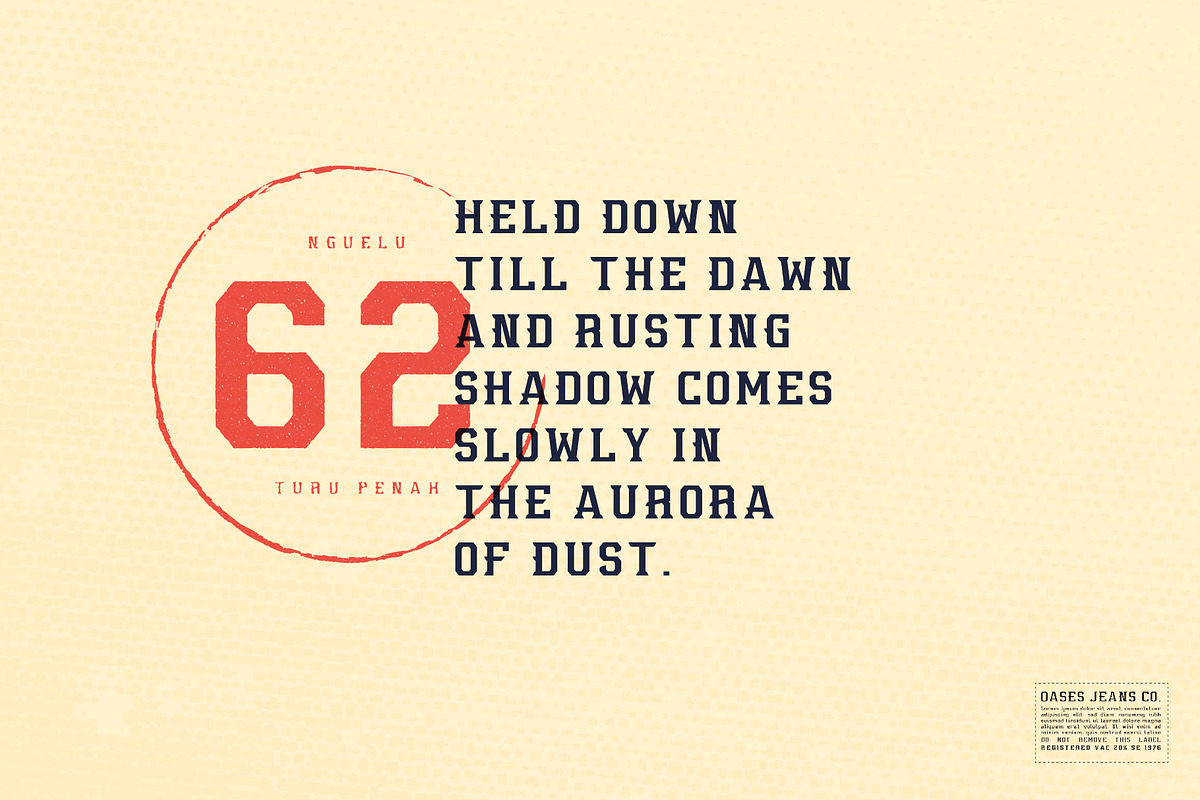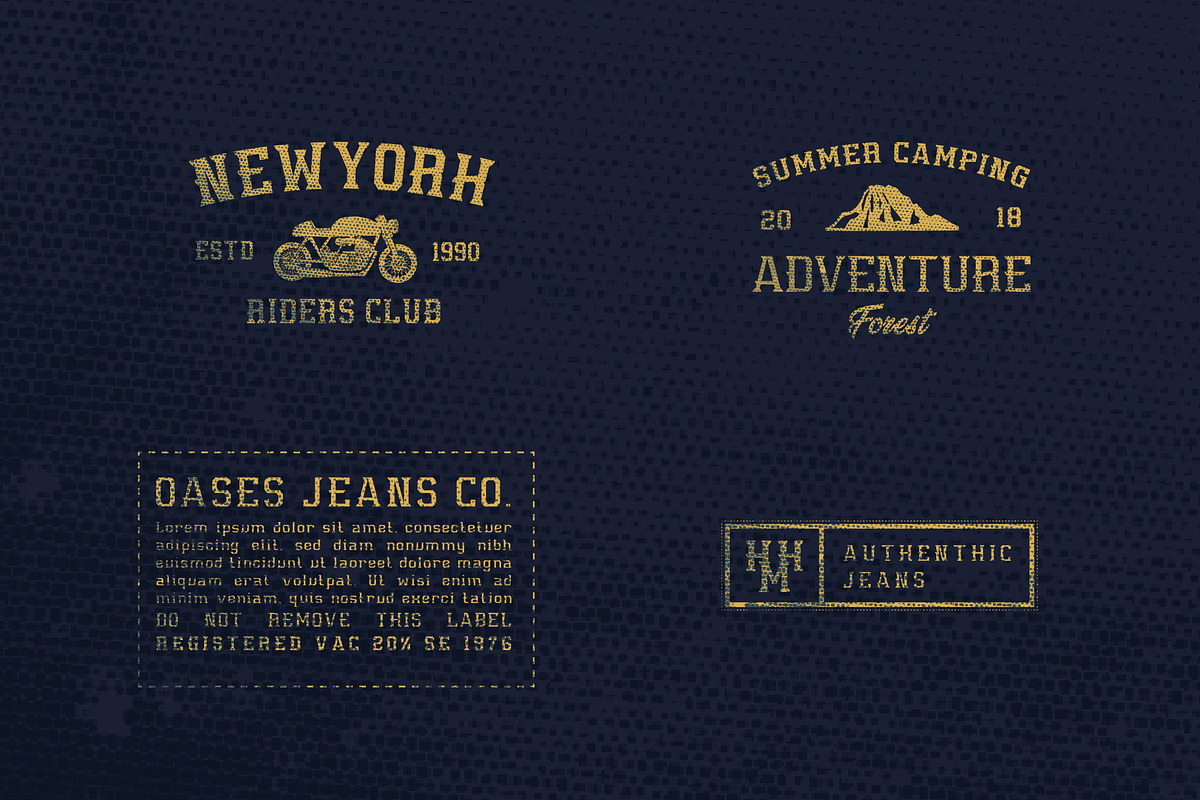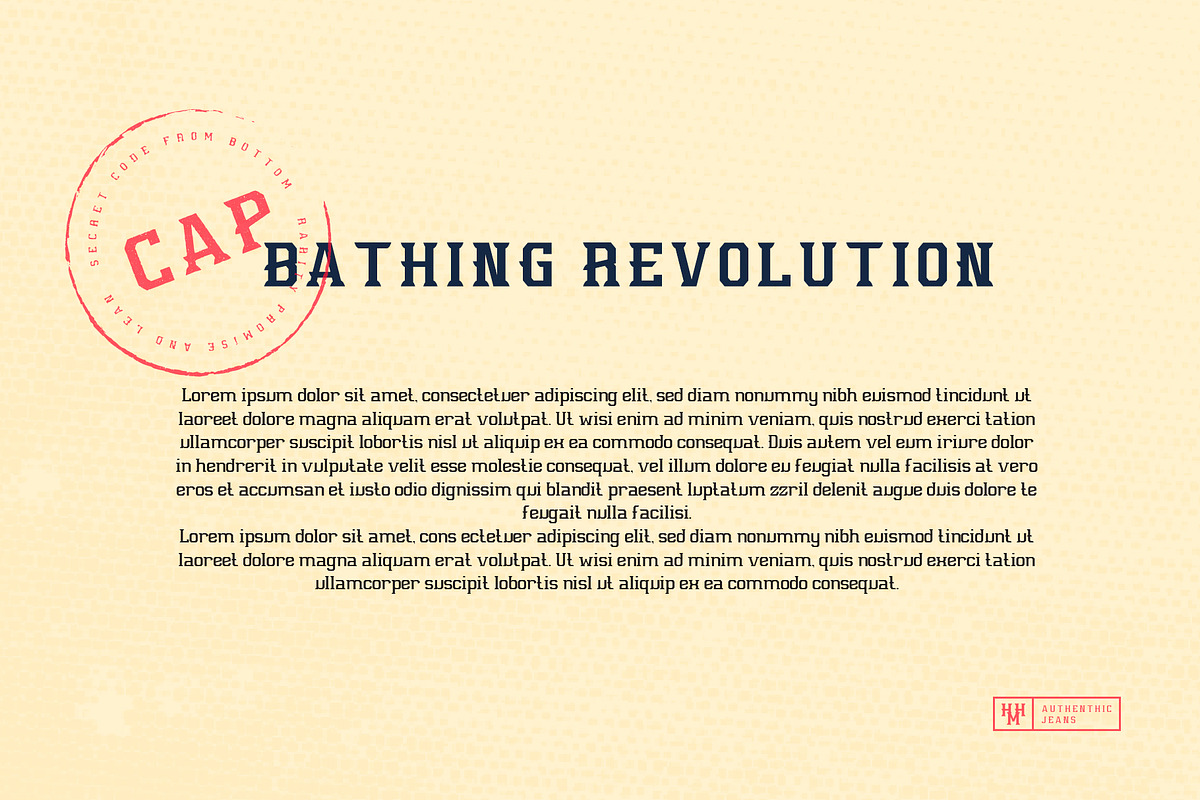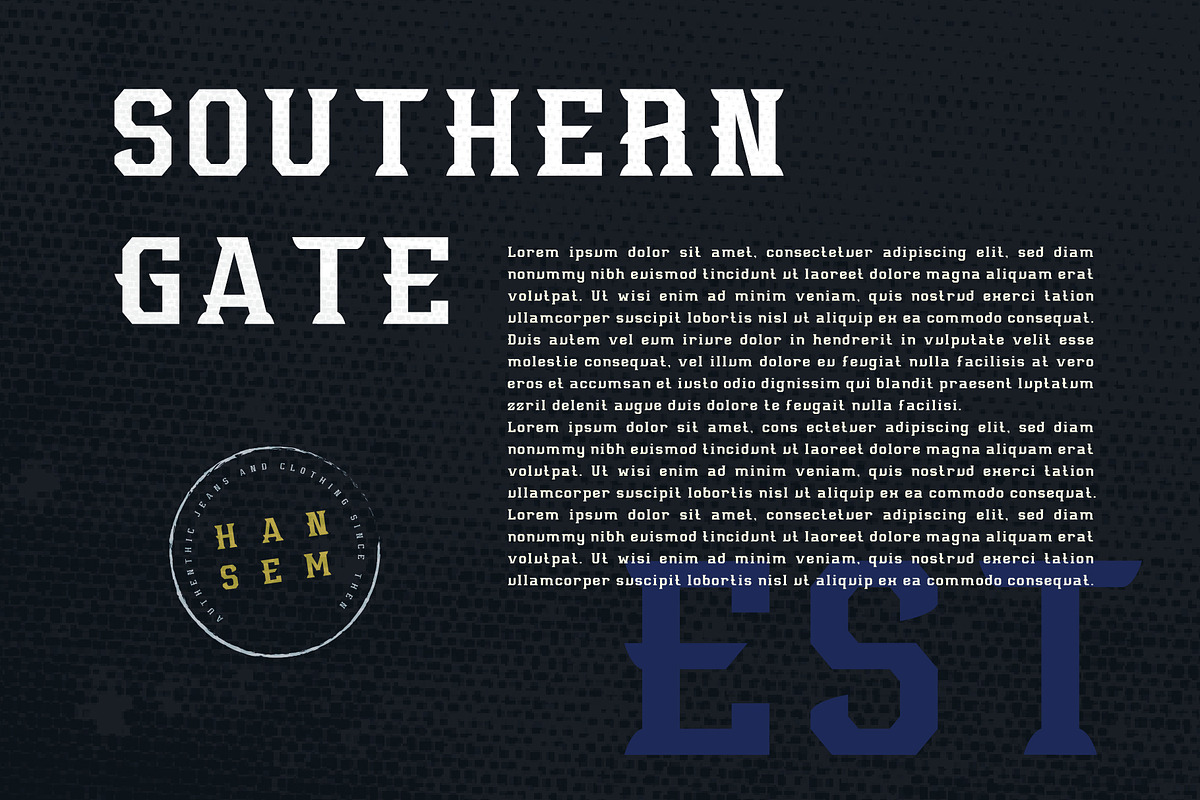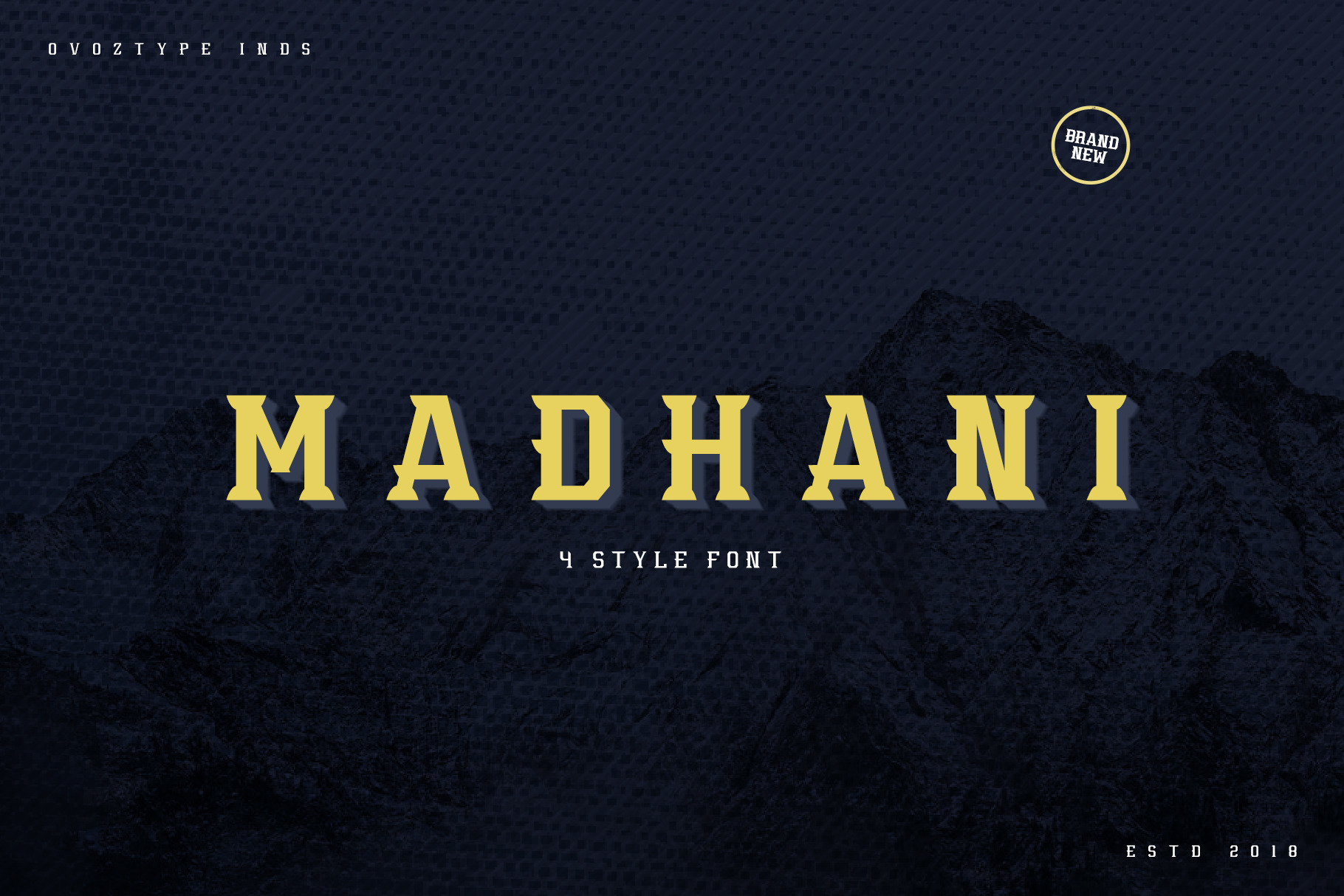
Introducing, "Madhani Display" Font Family, after a long time not uploading new item, finally Ovoz Creative start to creating new font. With womanly touch, and beauty packed into script, this font very suitable use for wedding invitation, congratulation art, or everything about beauty.
This font has more advantages, such as more unique and unusual style you can explore.
Available into uppercase, lowercase, symbol, numeral, punctuation and including so many variant of glyph. Also suitable to t-shirt, jacket, hat, or everything related about merchandise.
This font has superiority that may not all font get, for example:
- 100+ glyphs.
- 4 style